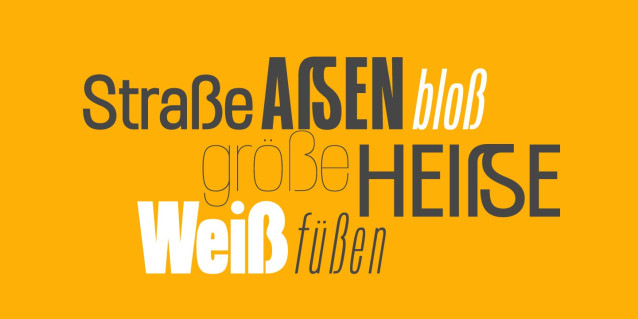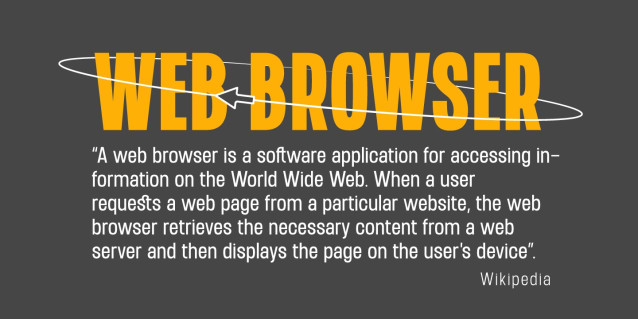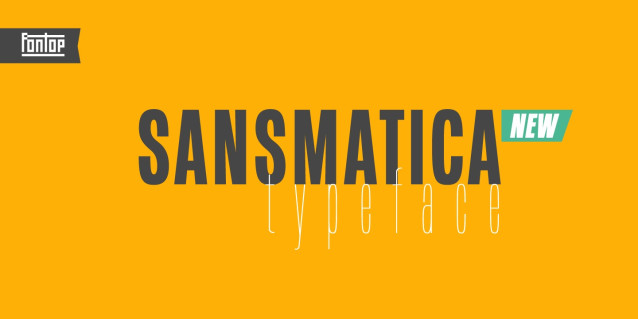
Sansmatica Font Family
Sansmatica Font Family is a clean and modern sans serif typeface. It has 28 fonts that work as a multi-purpose design solution. It consists of regular and condensed fonts that can be used for different cases: regular fonts are perfect for copy while Sansmatica condensed fonts are more specific – they make emotional associations and are perfect when you want your headlines or advertising to be noticeable. Also suite great for greeting cards, posters, branding, name card, stationary, design title, blog header, art quote, typography.
Sansmatica has 7 weights with light looking more modern, fashionable and the bold giving a more rugged impression is perfect for headlines, logos, quotes, and more! It is interesting to use bold condensed fonts – both vertical lines and weight draw attention.